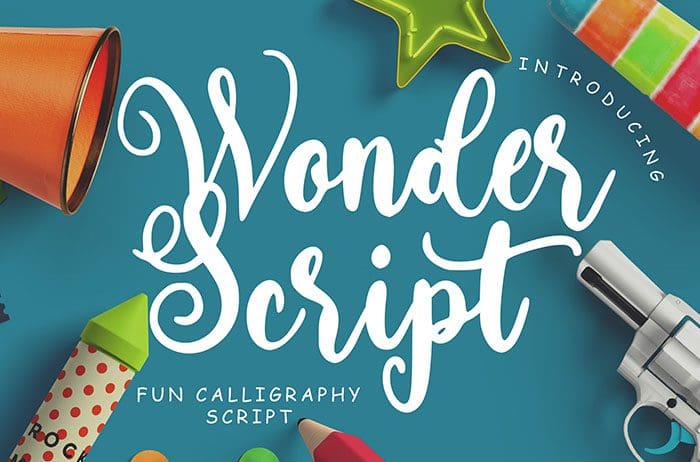
Wonder Script Font
Wonder is a fun and joyful Script Font which suit with children event. Wonder Script is perfect for logo, product designs, photography, and more. Thanks to Creatype Studio for sharing this font! Take a look at this portfolio for more of his stunning fonts.